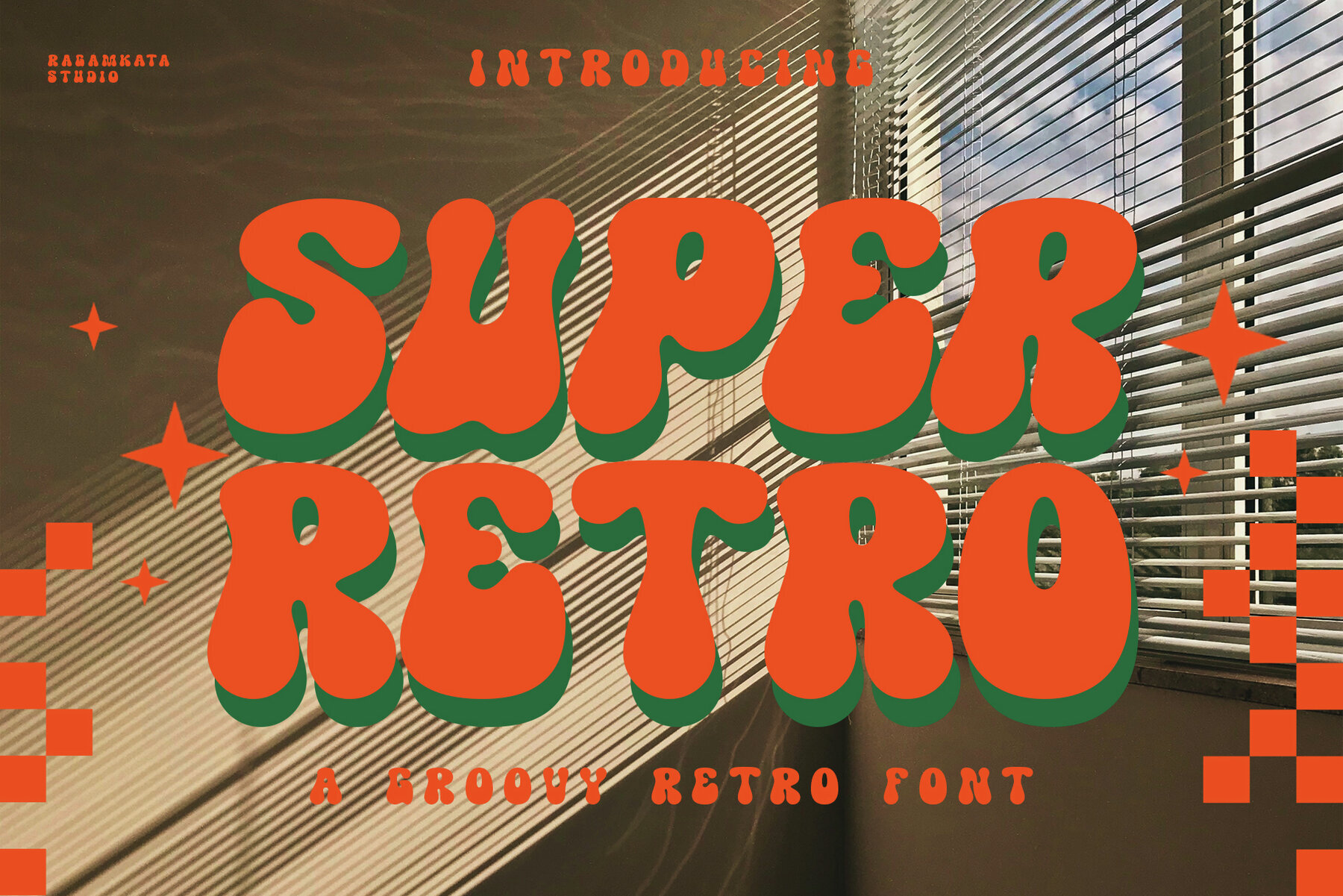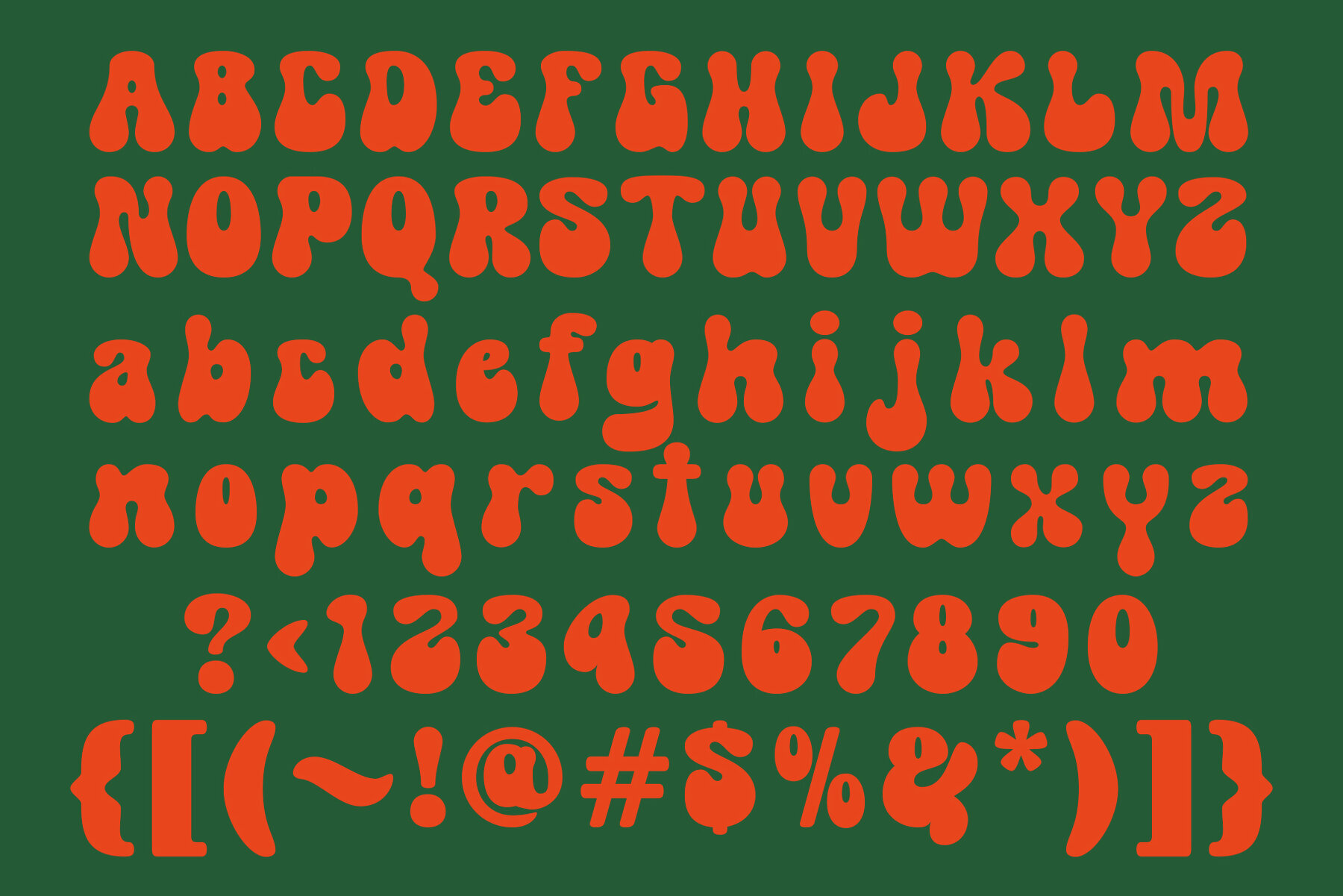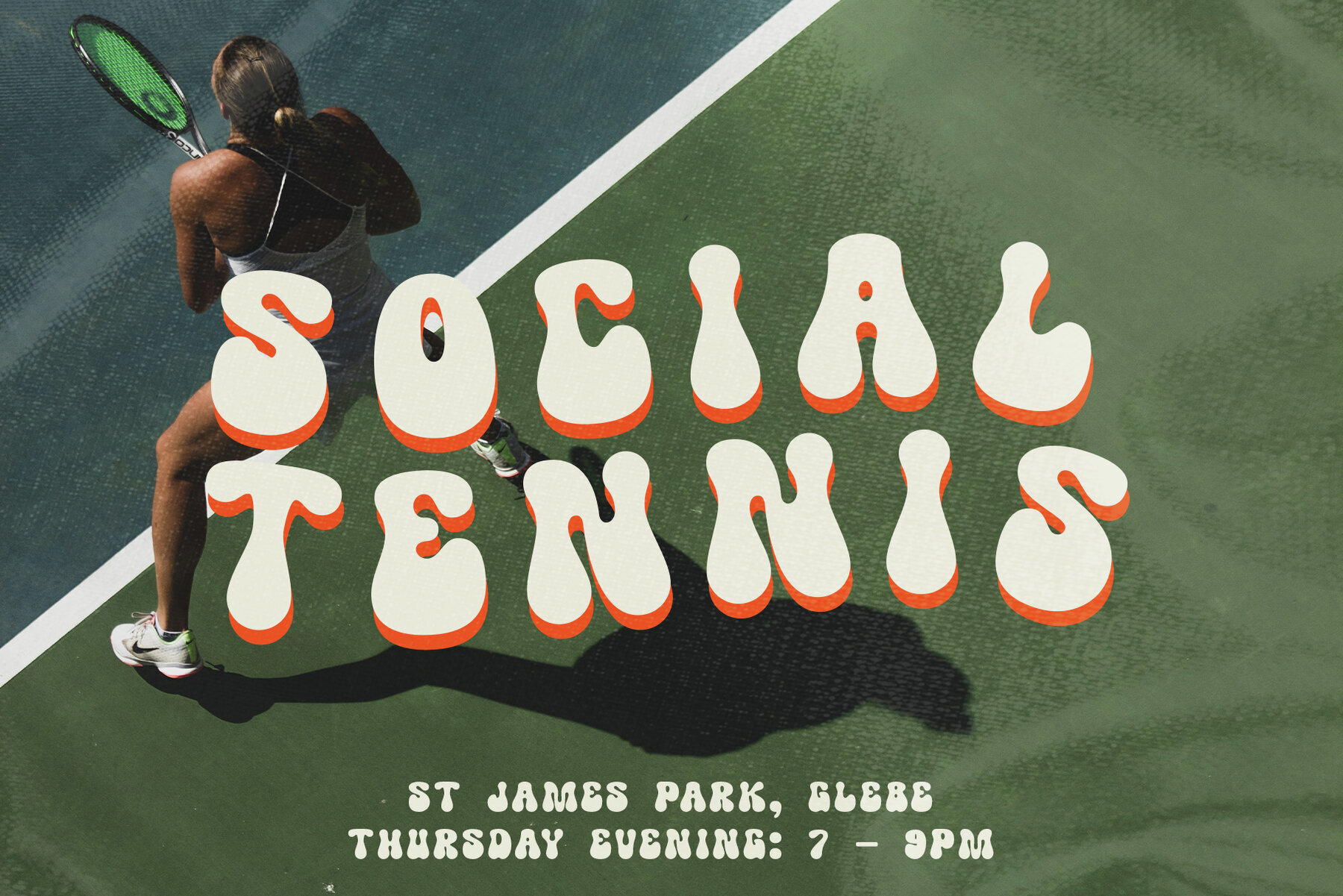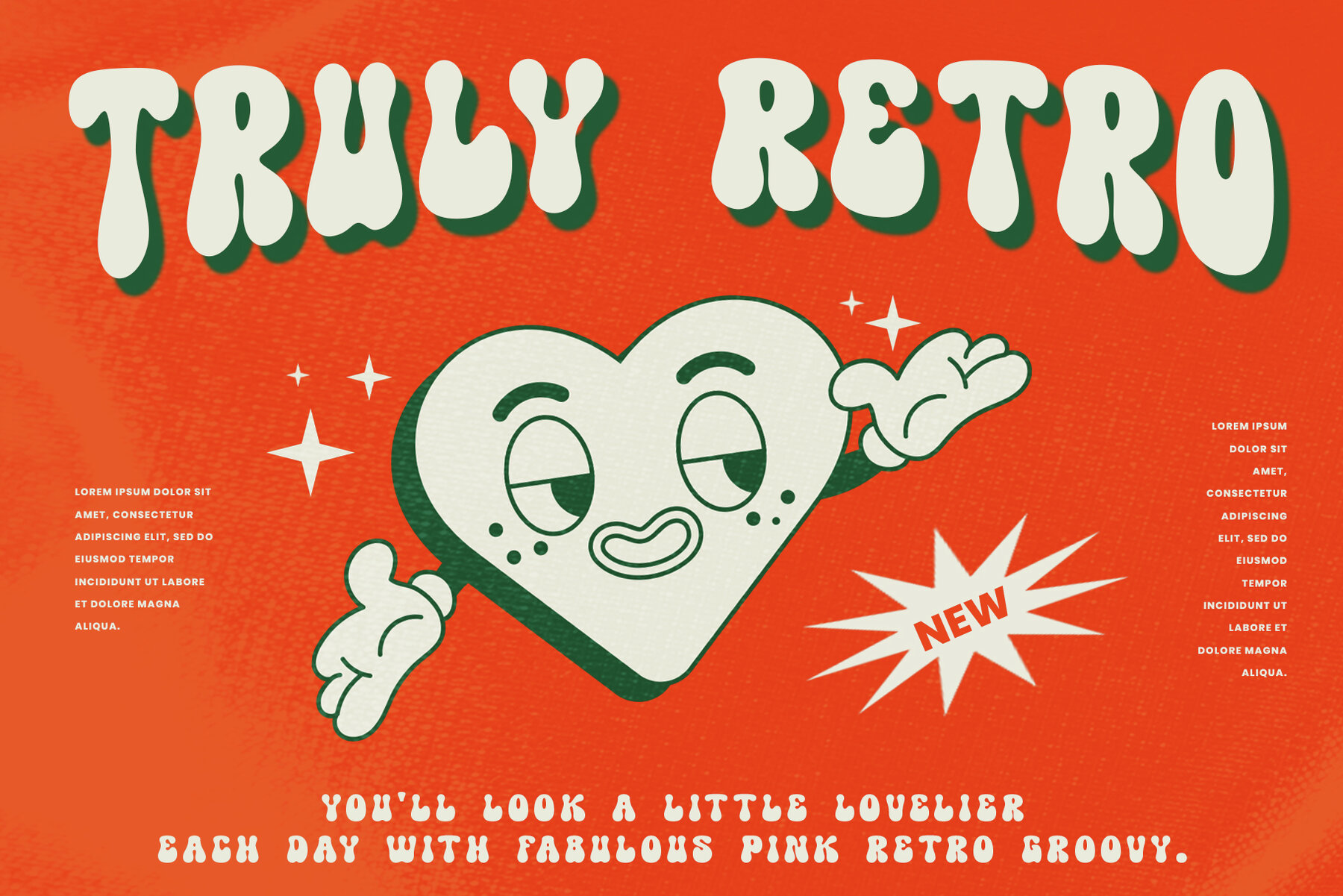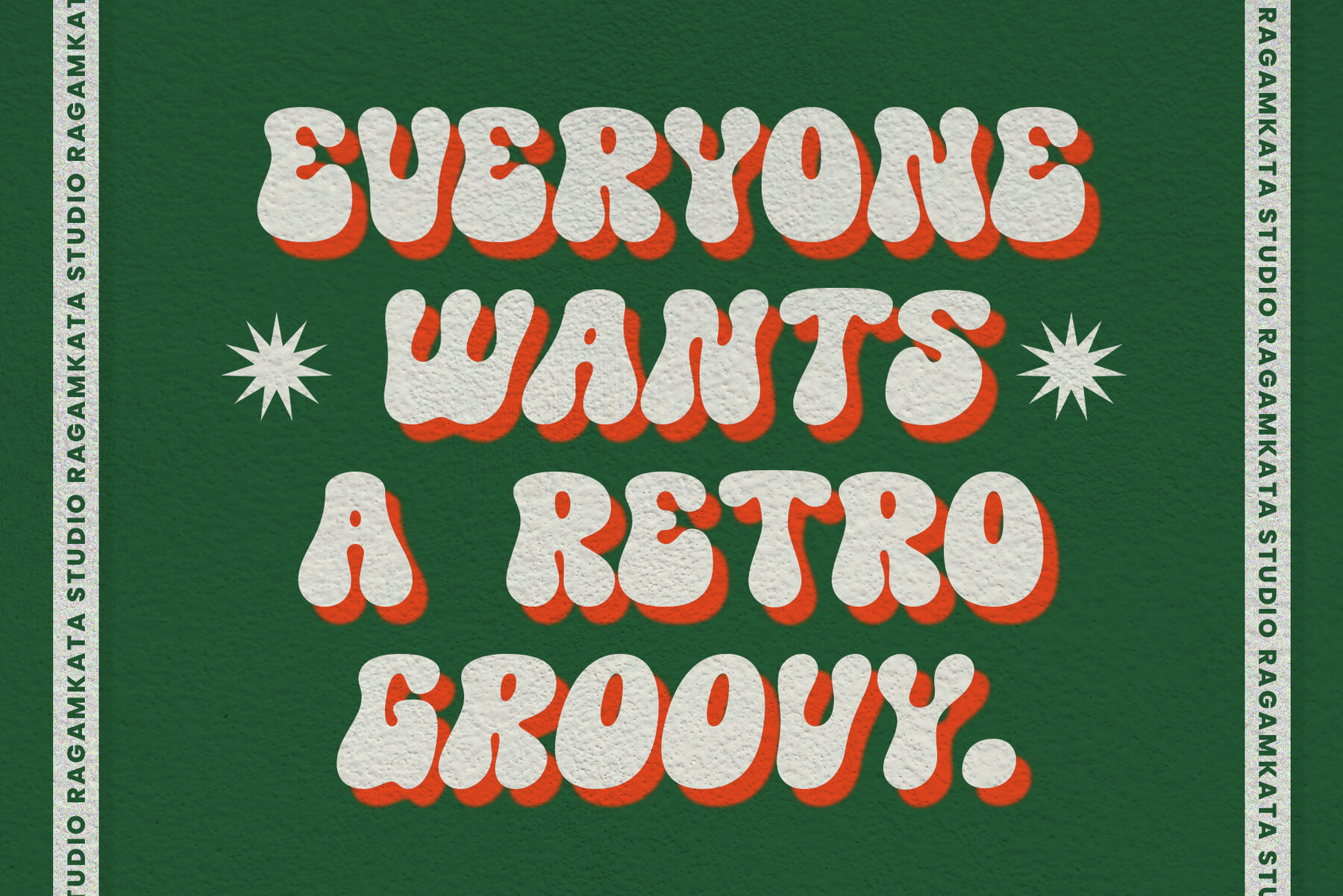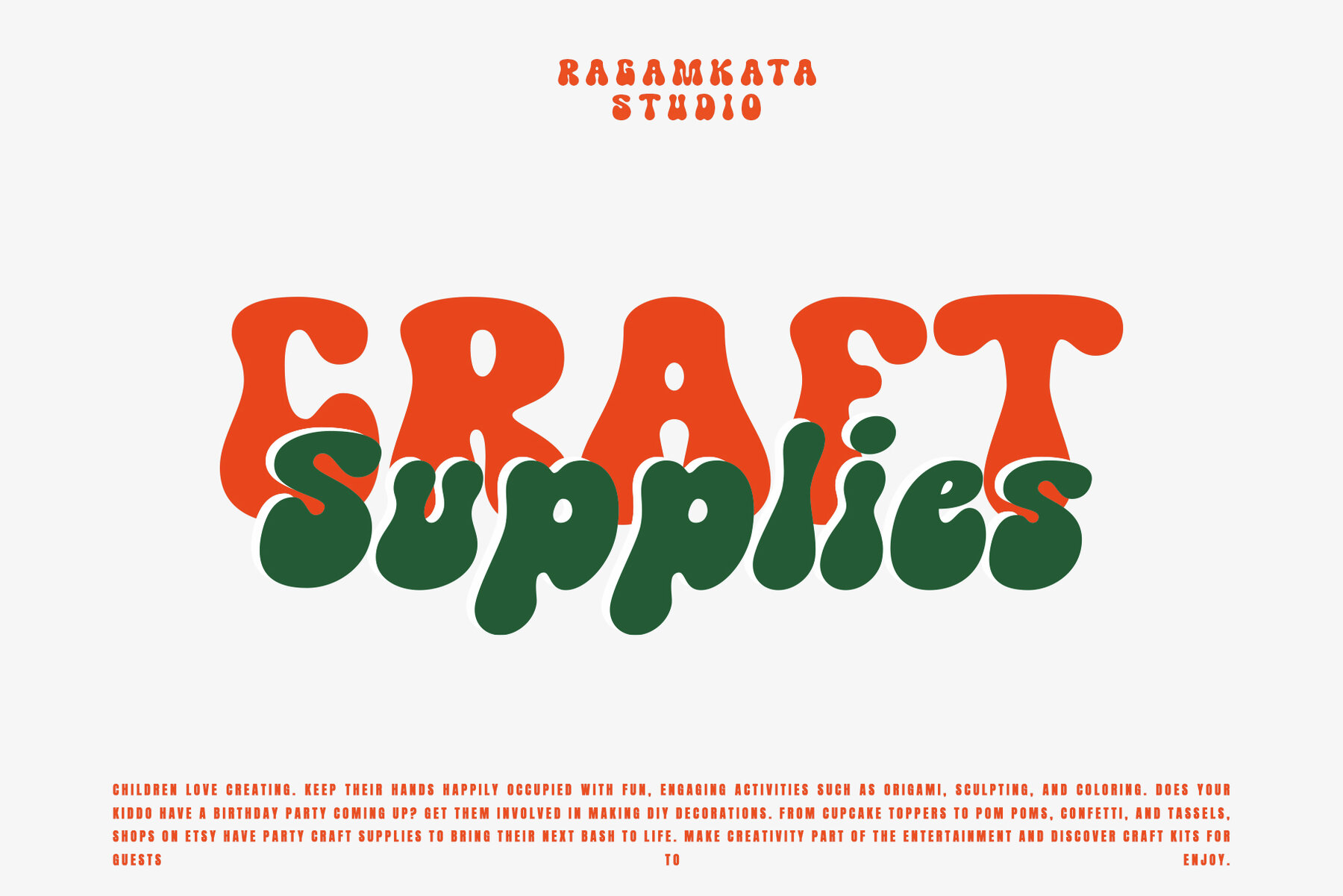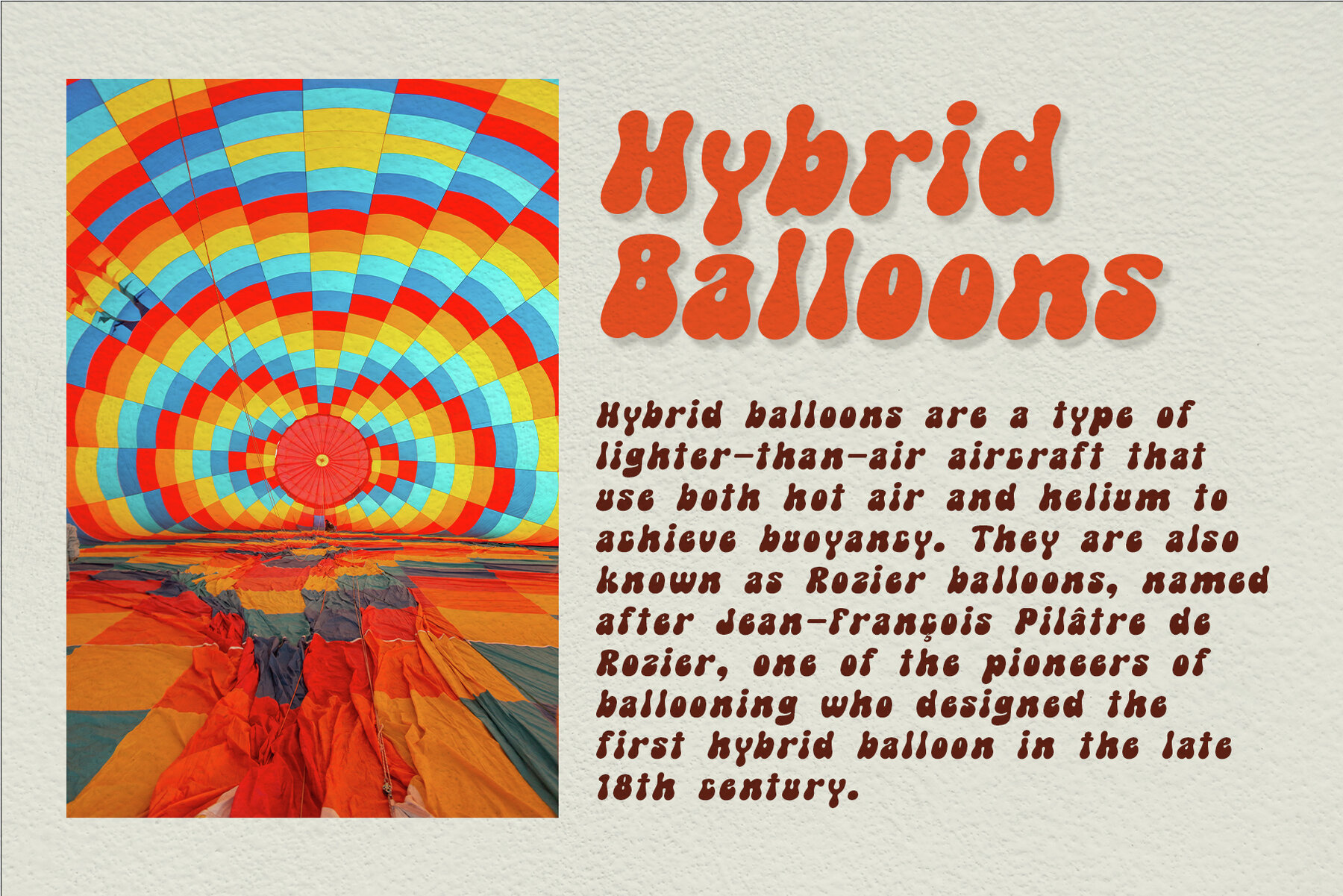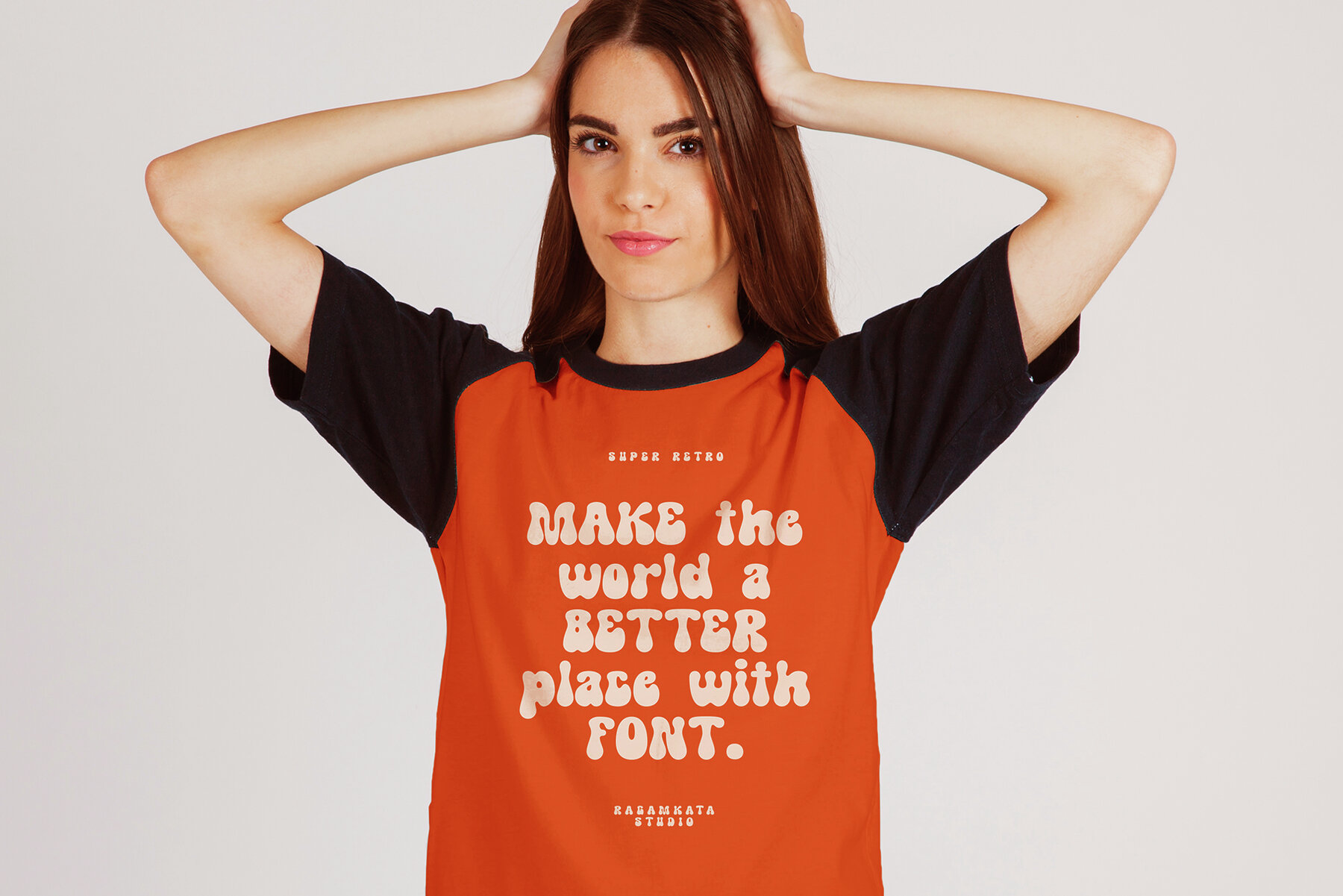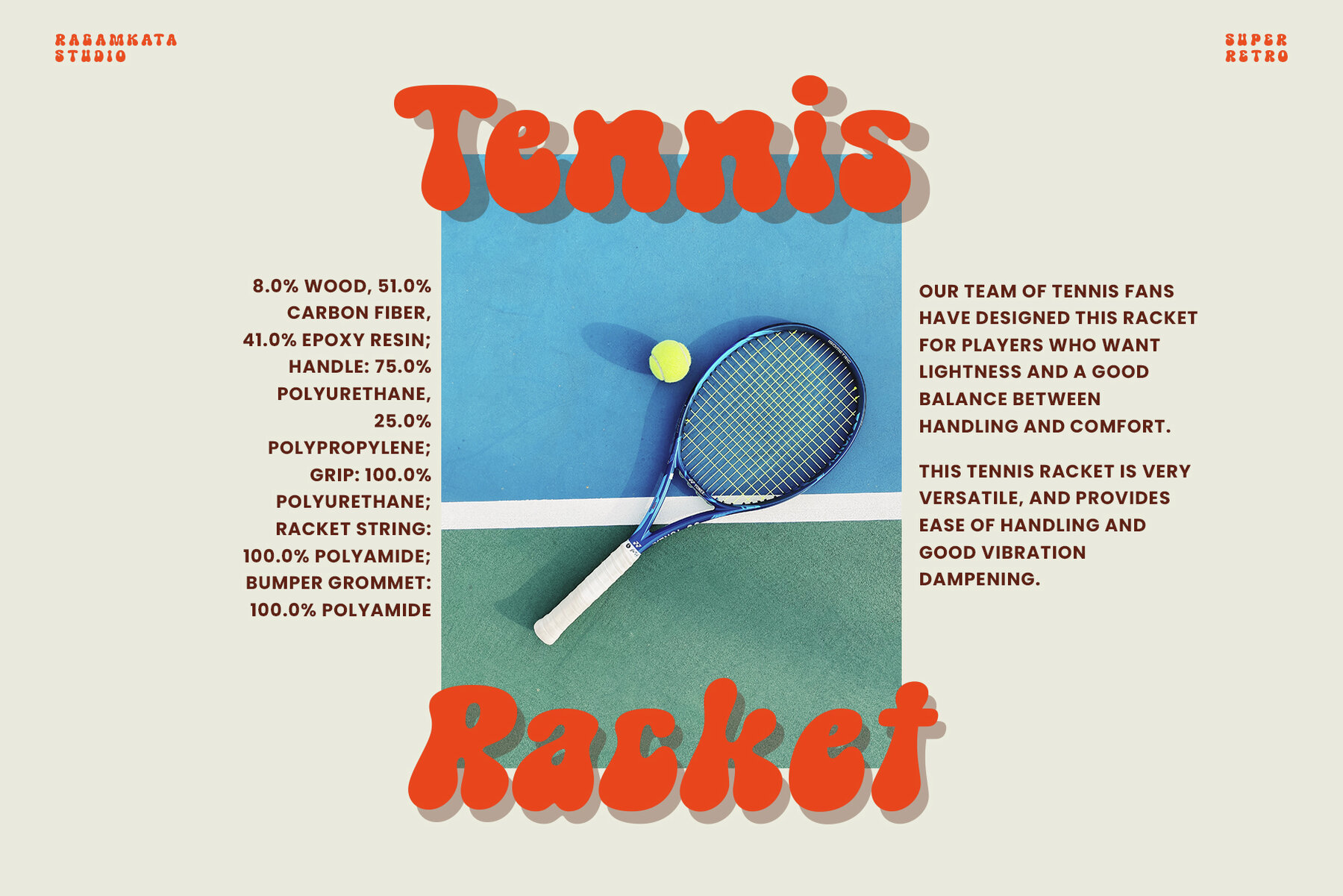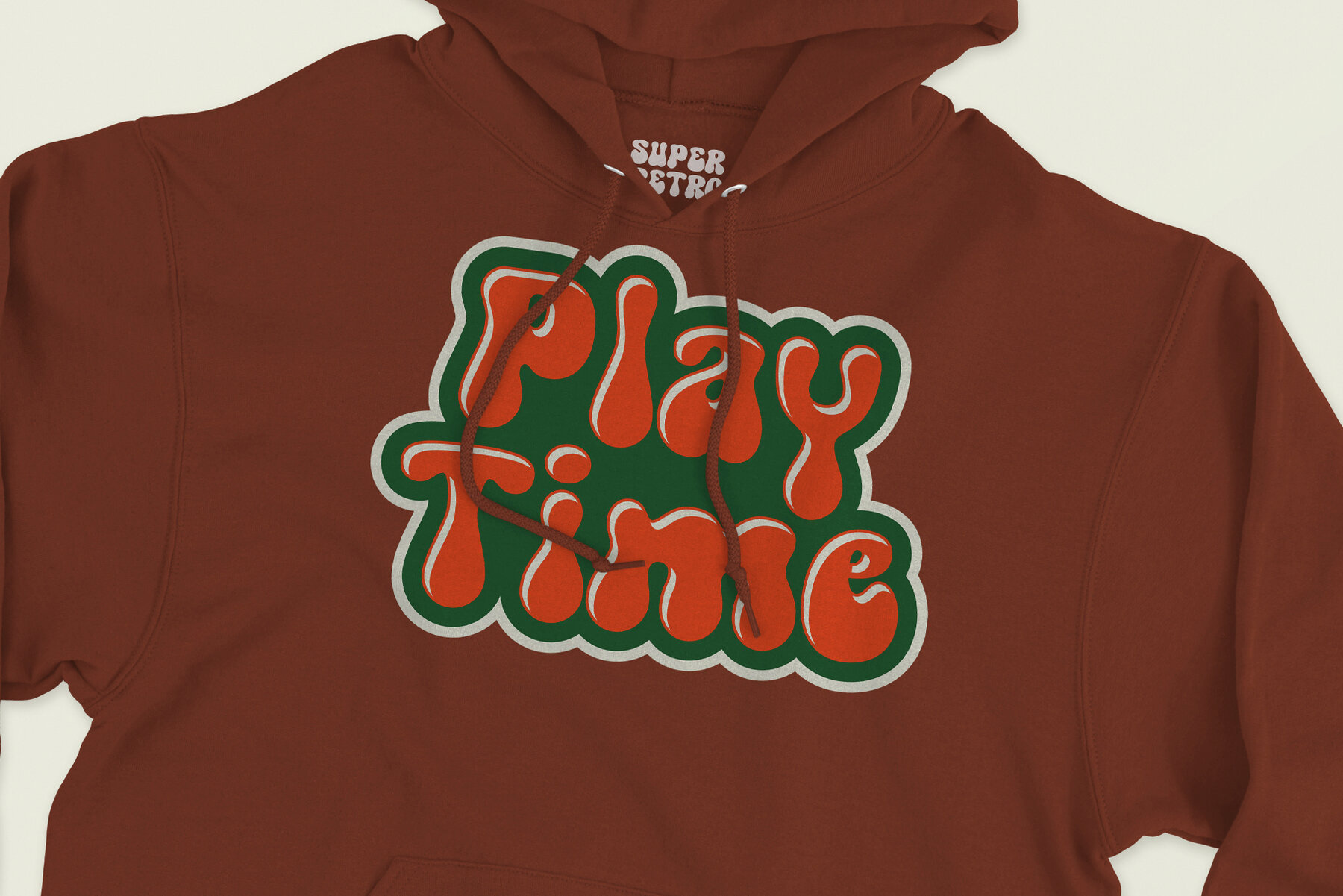
Super Retro Font
Super Retro is a font that offers a classic groovy retro style with a unique hand-drawn sketch touch. It draws inspiration from the retro era, filled with vibrant colors and a sense of fun. Each uppercase letter has its own distinctiveness compared to the lowercase letters, providing an interesting visual variation. Super Retro features chubby and rounded letterforms, creating an impression that embodies cheerful and joyful characters. Each capital letter is written with winding and wavy lines, adding an artistic effect reminiscent of trendy hand-drawn art. The font showcases a style inspired by the energetic music scene of the retro era, characterized by freedom of expression. The letters appear to sway and move dynamically, as if they are dancing on stage. Rough lines and details add an authentic touch, capturing a strong vintage aura. Super Retro highlights each letter with its unique qualities and characteristics. Every uppercase letter has a special touch that sets it apart from the lowercase letters. Some letters may have extra extensions at the top or bottom, providing distinctive decorative elements. There are also letters written in a more eccentric style, with slightly elongated or condensed proportions, creating intriguing and refreshing differences. This font is ideal for designing posters, logos, titles, and various designs that require a strong retro impression. With its ability to adapt to different letter characteristics, Super Retro offers limitless variations in your design creativity. With Super Retro, you can create captivating and standout designs with a classic and unique groovy retro style.